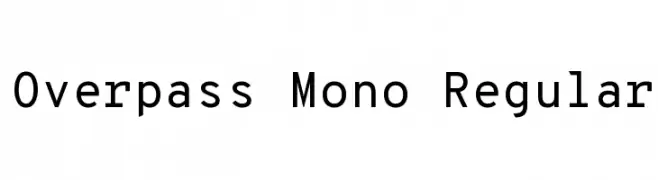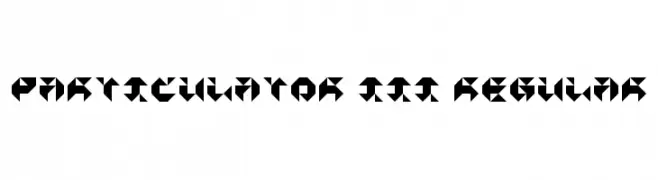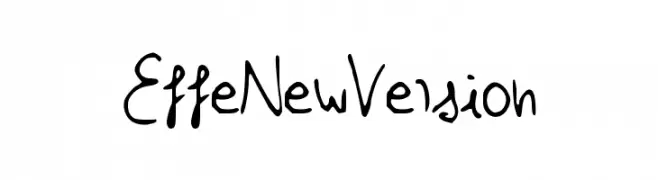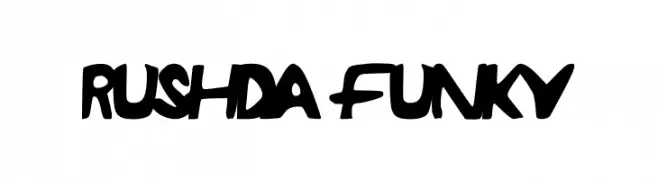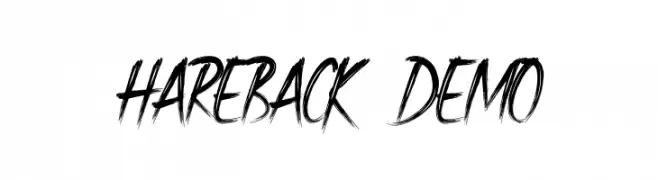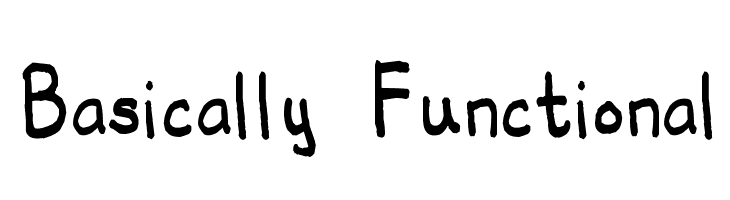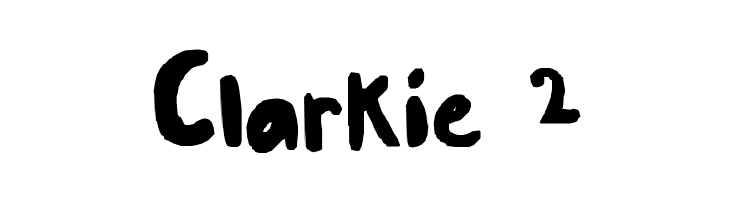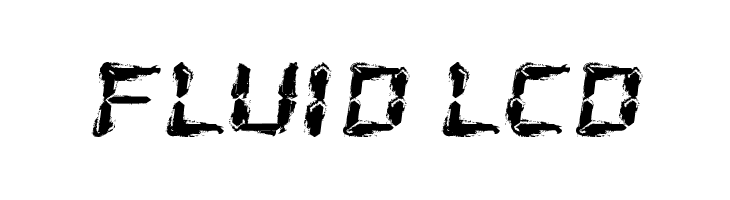
A clean, modern monospaced typeface with uniform spacing and minimal stroke contrast.
A bold, geometric font with angular shapes and a futuristic style.
A bold, oblique font with a modern and dynamic style.
A bold, geometric sans-serif typeface with a modern and clean aesthetic.
A modern, geometric font with rounded edges and a sleek design.
A bold, decorative font with intricate geometric patterns and a street art style.
A bold, playful font with exaggerated curves and dynamic flow.
A playful, casual handwritten font with rounded, consistent strokes.
A dynamic brush script font with sharp, angular strokes and a textured, hand-painted appearance.